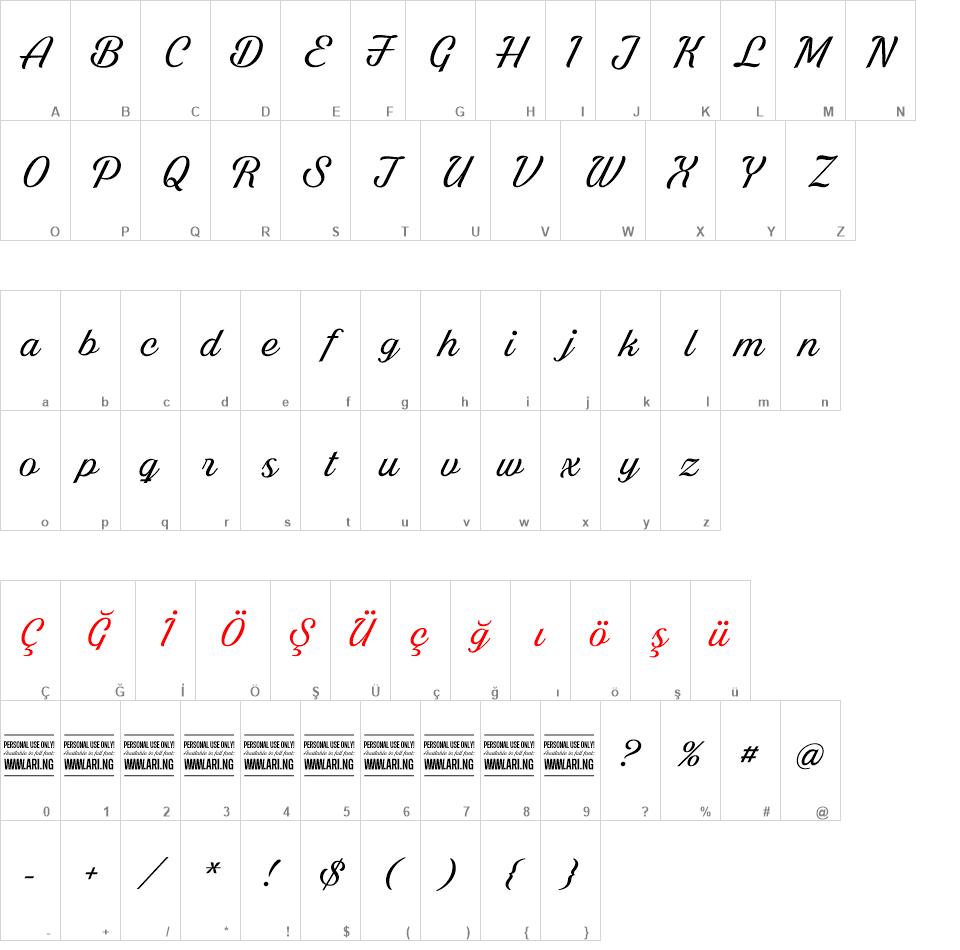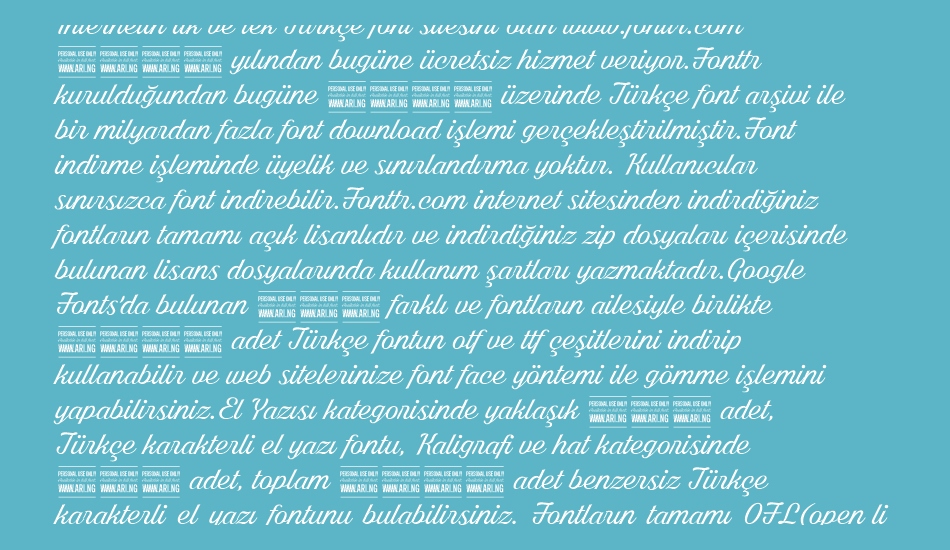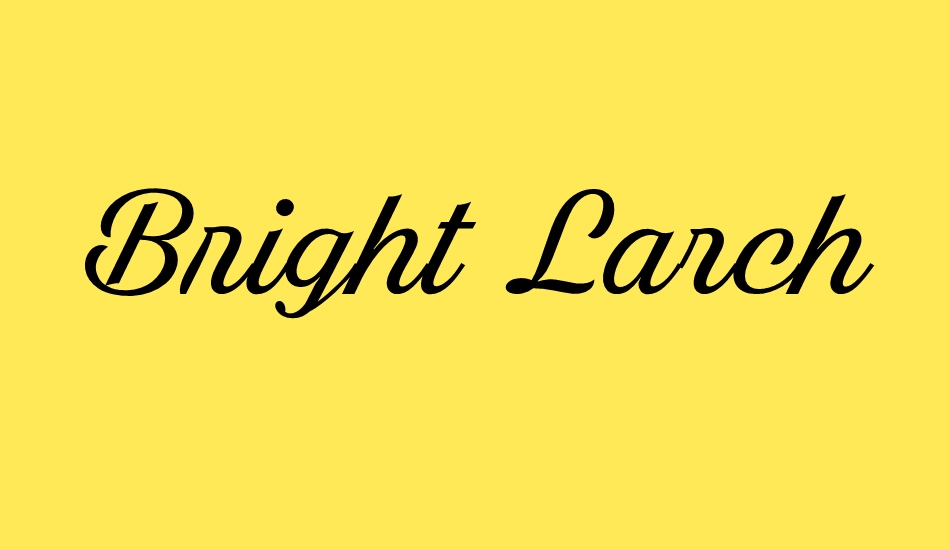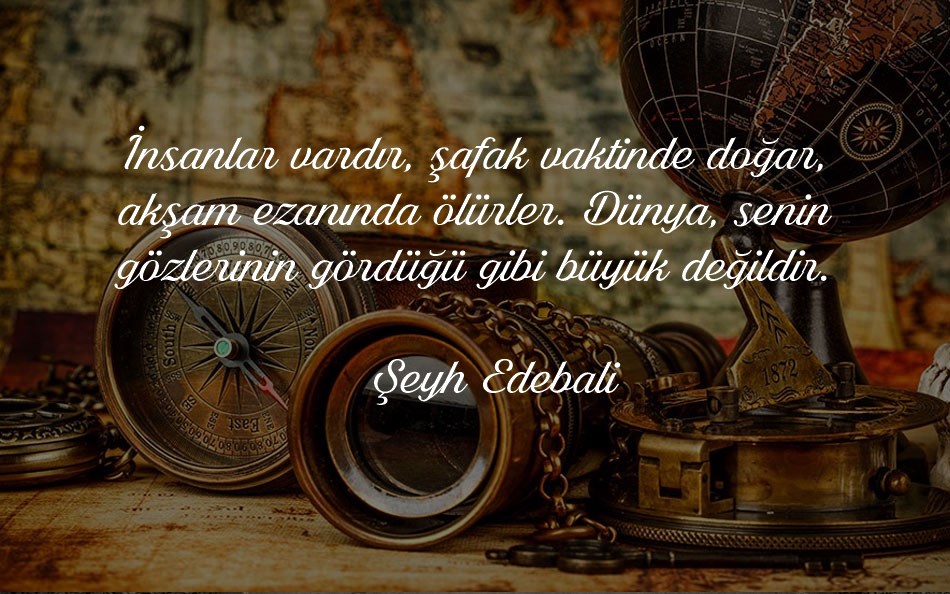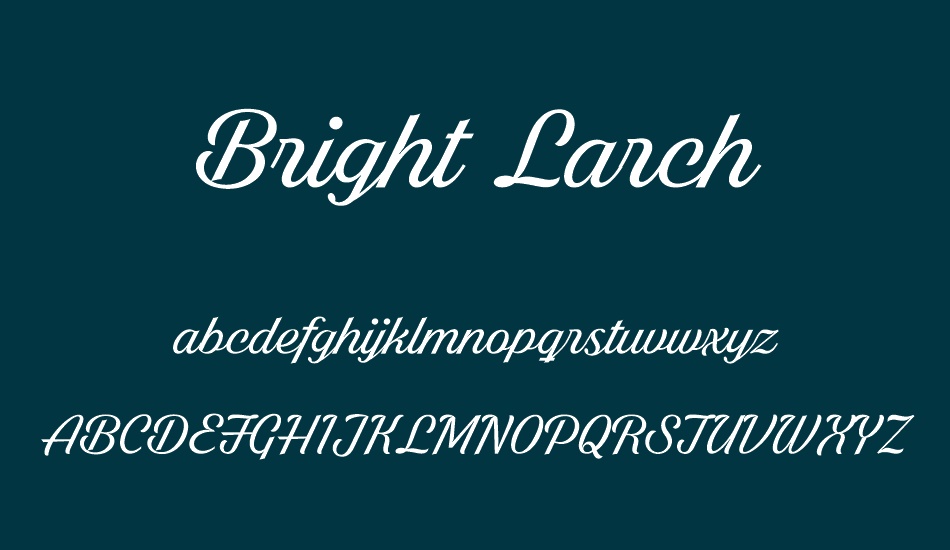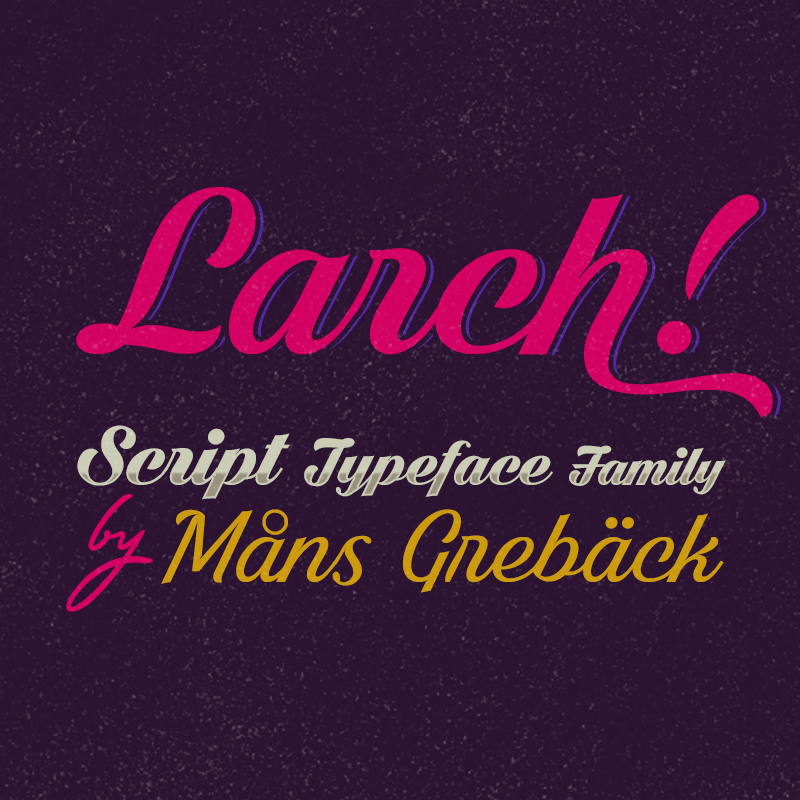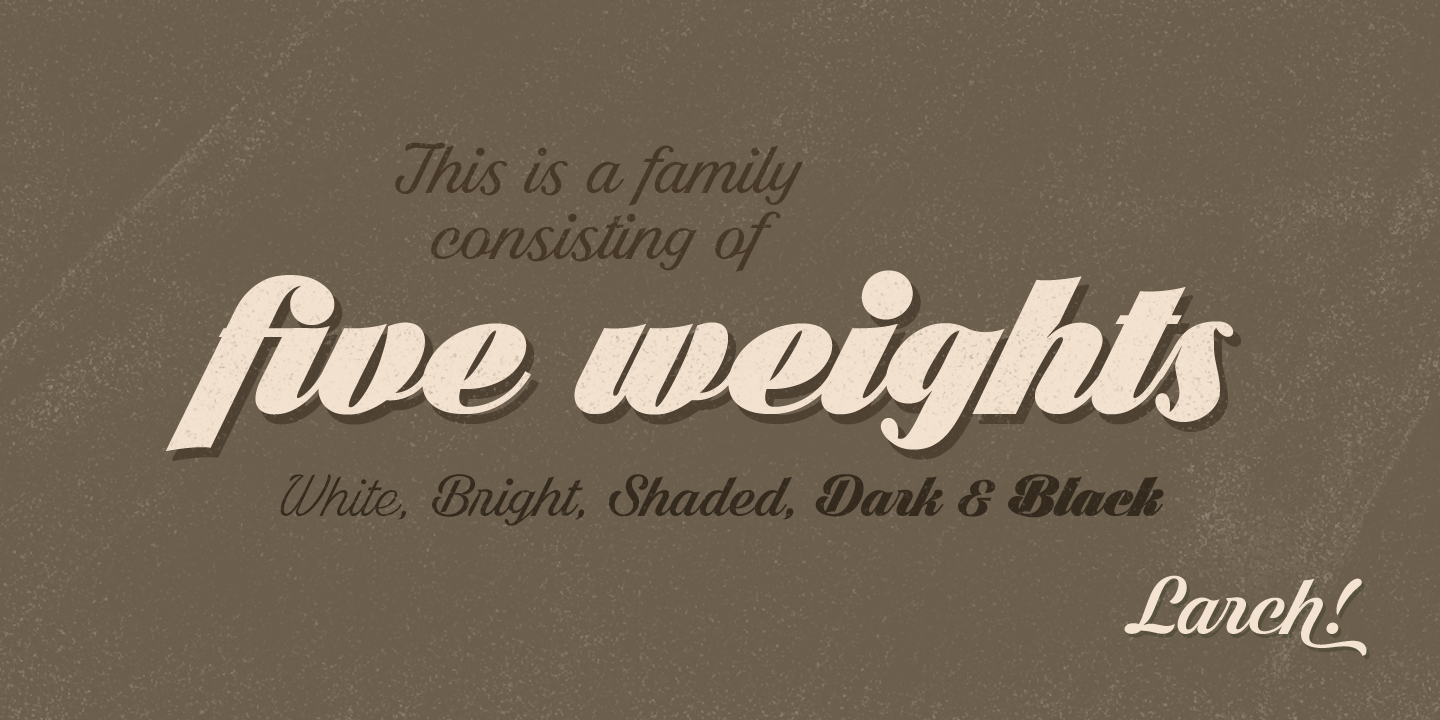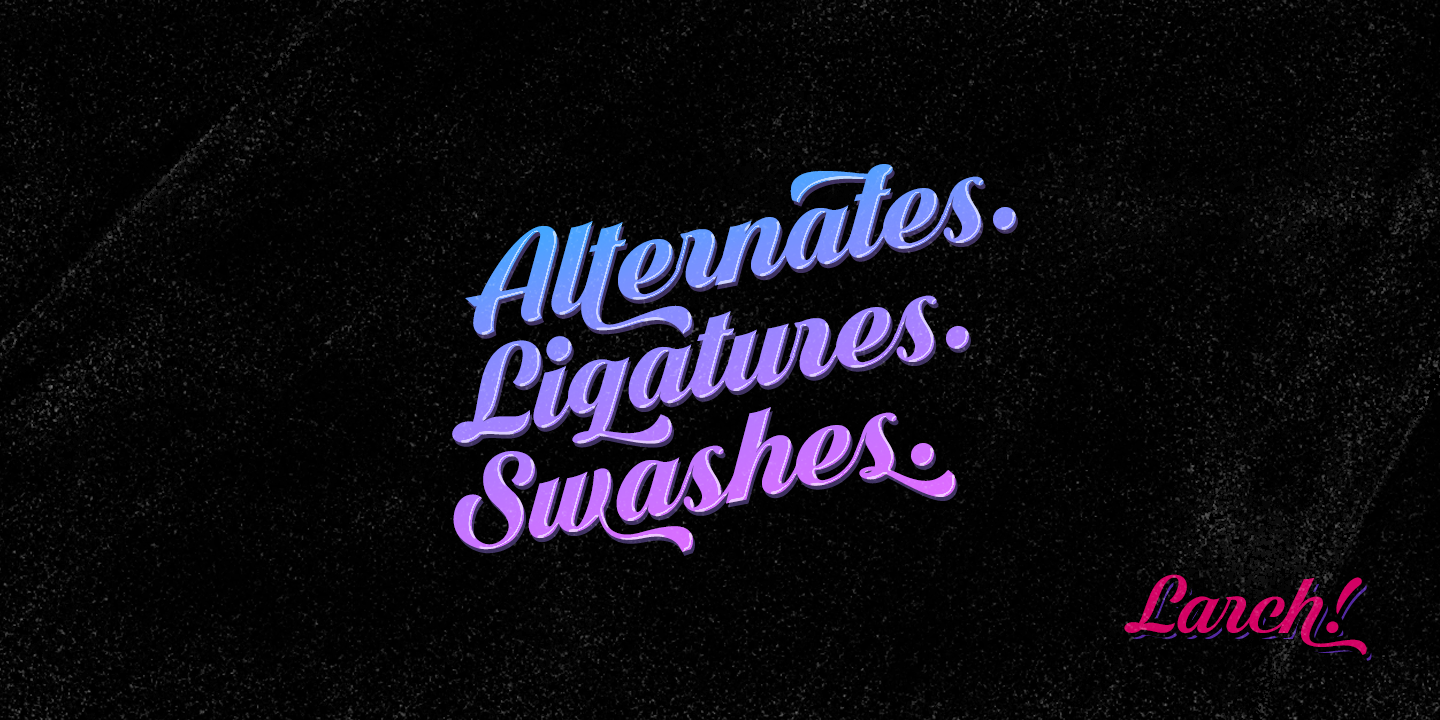
Bright Larch font
Larch is a clear and crisp high quality script typeface.
It consists of five weights: White, Bright, Shaded, Dark & Black.
Each style is working great separately, but they
make the perfect combination together.
Larch is designed by M?ns Greb?ck in 2016.
The font supports hundreds of languages.
It contains contextual and stylistic alternates, swashes and ligatures.
Write # after any lowercase letter to make swashes!
You can also write % after the following letters to make left swashes:
b d f h i j k l t
Example: Black% Lar#ch